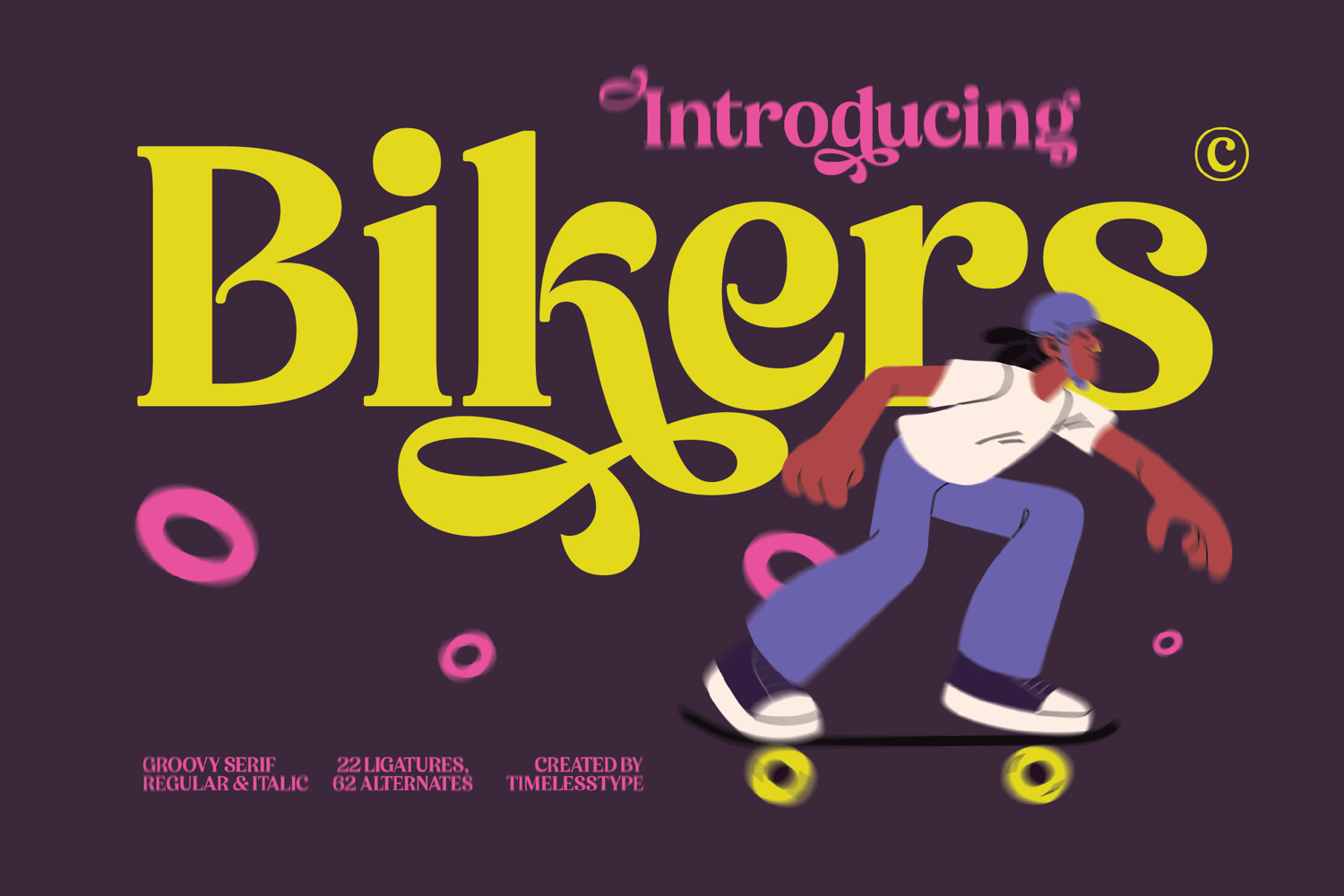
Bikers - Groovy Serif Display Font
Bikers
Bikers Italic
Unleash a wave of pure nostalgic energy with Bikers, a powerfully groovy display serif that bleeds personality. Each letter is crafted with soft, chunky curves and a confident, psychedelic flair that harks back to the golden age of funk and freedom. Bikers doesn't just sit on the page; it dances, making an instant and unforgettable statement with its bold strokes and playful spirit. It's the perfect typeface to inject raw, rebellious character into any design.